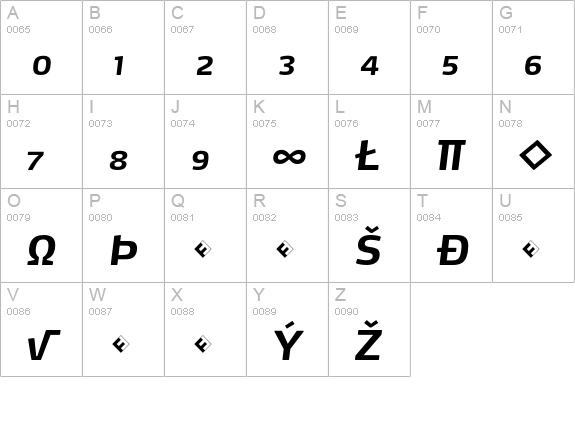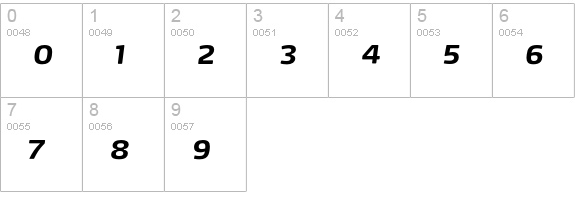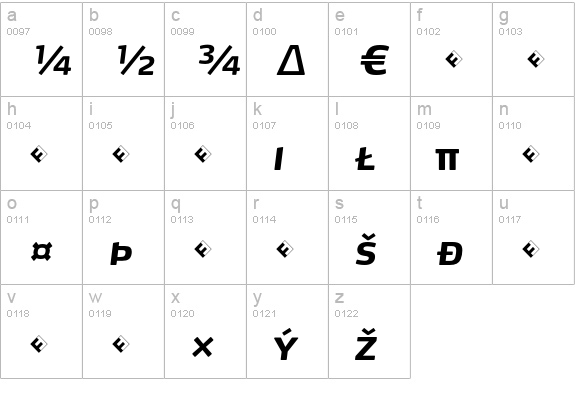
Max-BoldItalicSCExpert Font Details
Max-BoldItalicSCExpert is a striking and bold font that exudes confidence and sophistication. Its italicized style adds a touch of elegance, making it perfect for creating eye-catching designs that demand attention. This font is ideal for headings, logos, and other design elements where you want to make a statement. The Max-BoldItalicSCExpert font is not only visually stunning but also versatile, as it can be used for a wide range of design projects. Its expertly crafted design ensures that it maintains its bold and impactful look even at smaller sizes. Best of all, the Max-BoldItalicSCExpert font is available for free download at FontsMarket.com. This means that you can easily access this high-quality font without having to worry about any costs. Whether you are a professional designer or a hobbyist looking to elevate your projects, the Max-BoldItalicSCExpert font is a valuable addition to your font collection.